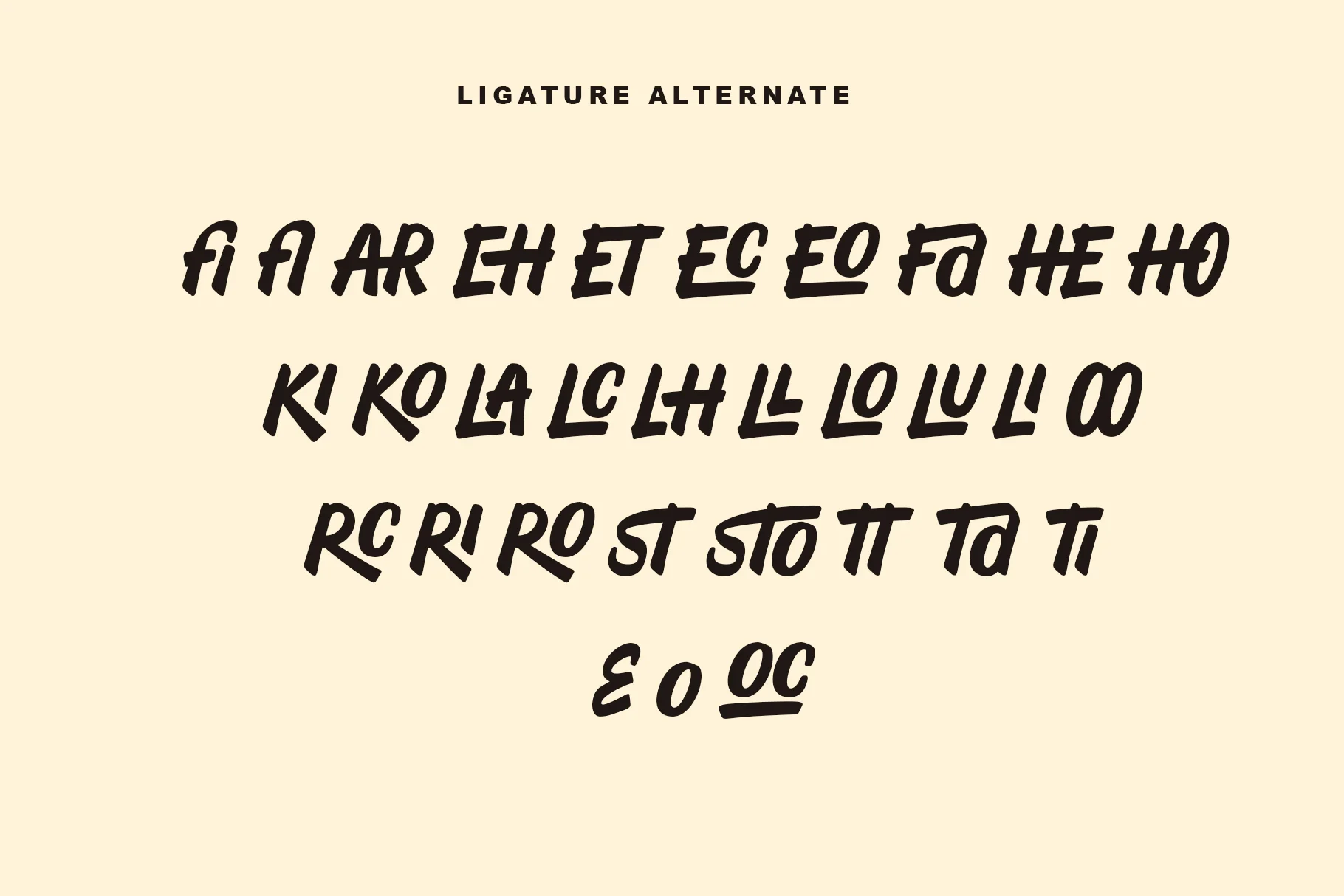
Signed Retro
This font is a Display typeface with a very distinct Retro or Vintage.The letters are thick and bold, but feature heavily rounded edges, giving it a playful and funky feel.The font is highly attention-grabbing, casual, and carries a disco or pop art aesthetic. It is clearly designed to evoke nostalgia.Highly suitable for vintage-inspired branding, retro movie or music posters, disco event designs, t-shirt designs, or any product that aims to stand out with a cheerful and groovy vibe.
Features
- Uppercase and Lowercase – Complete range of letter cases for diverse uses.
- Numerals – Includes numbers for various creative needs.
- Functional – Designed for efficiency and aesthetic appeal.
- Multilingual Support – Includes characters for multiple languages.
- Stylistic Variations – Offers creative style options.